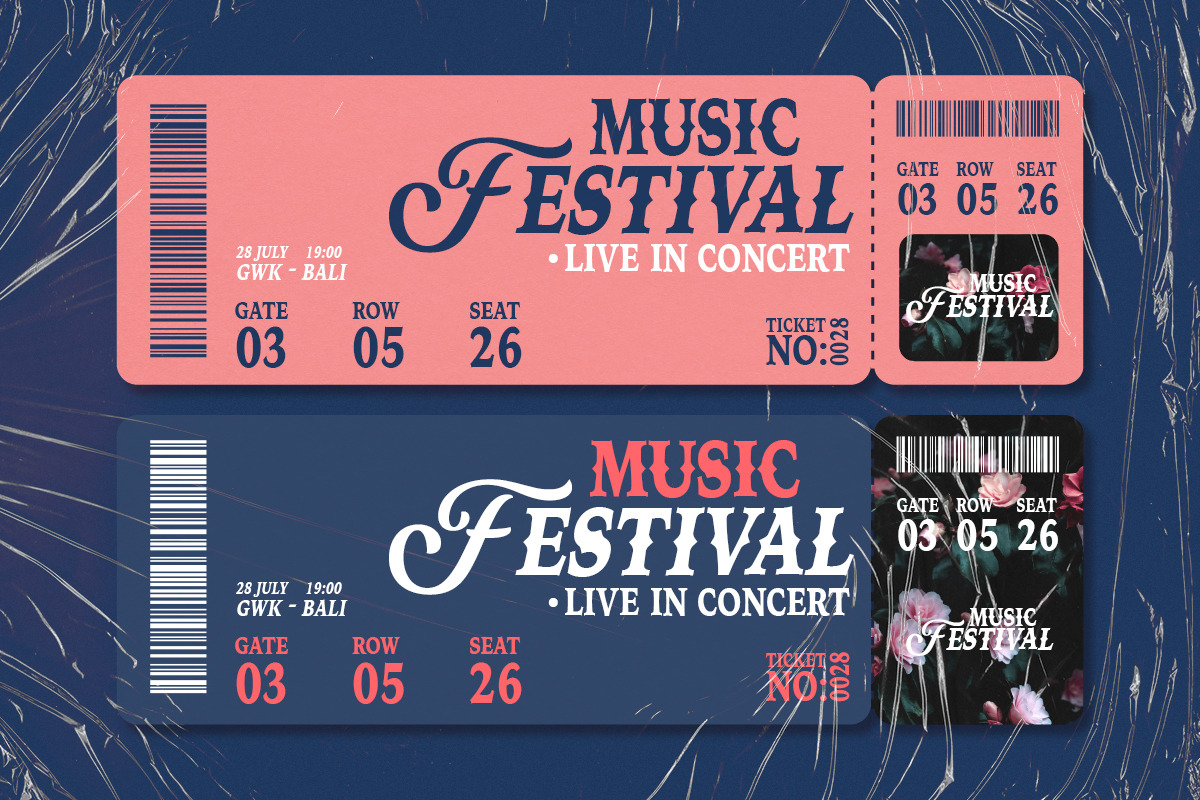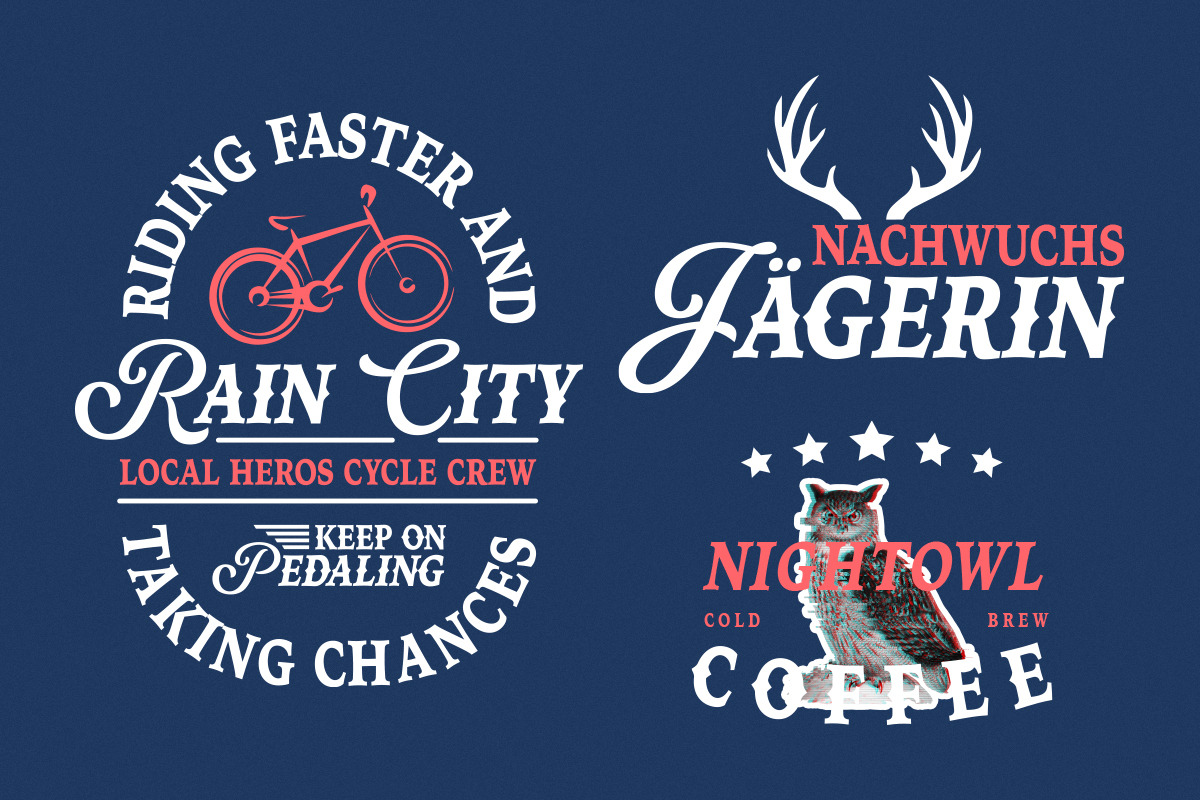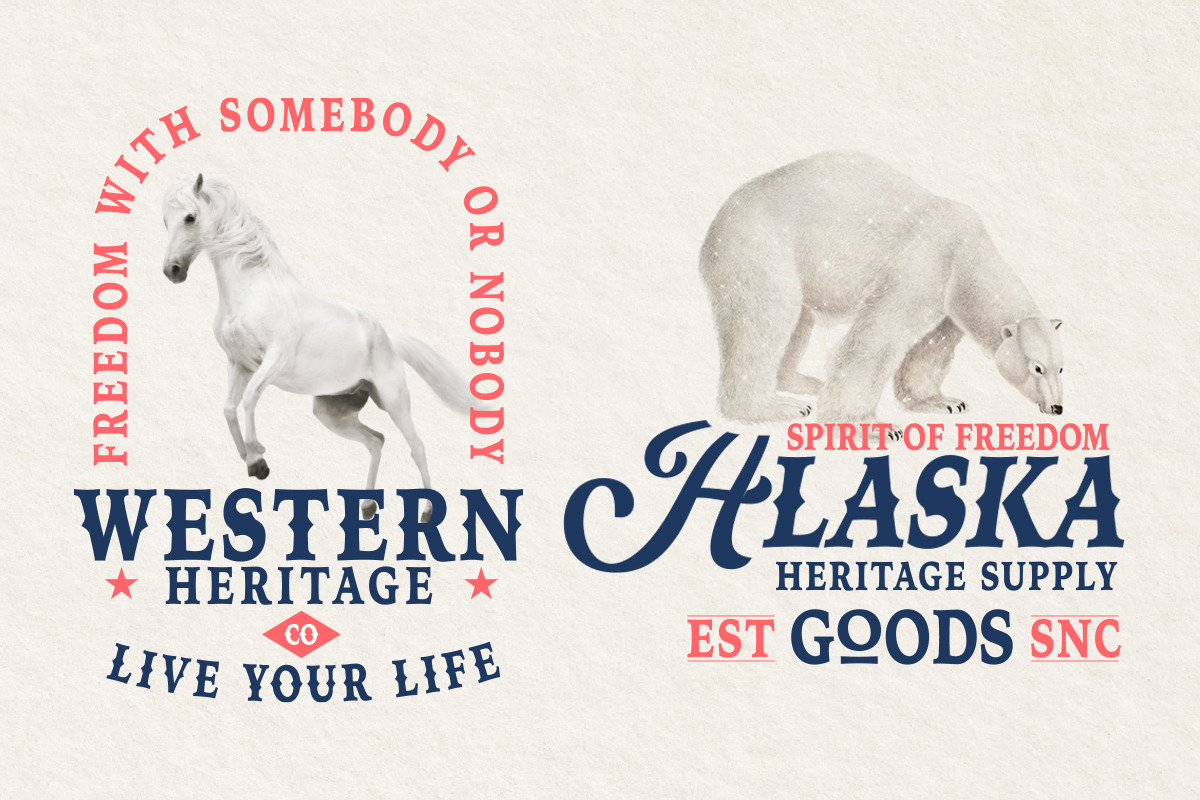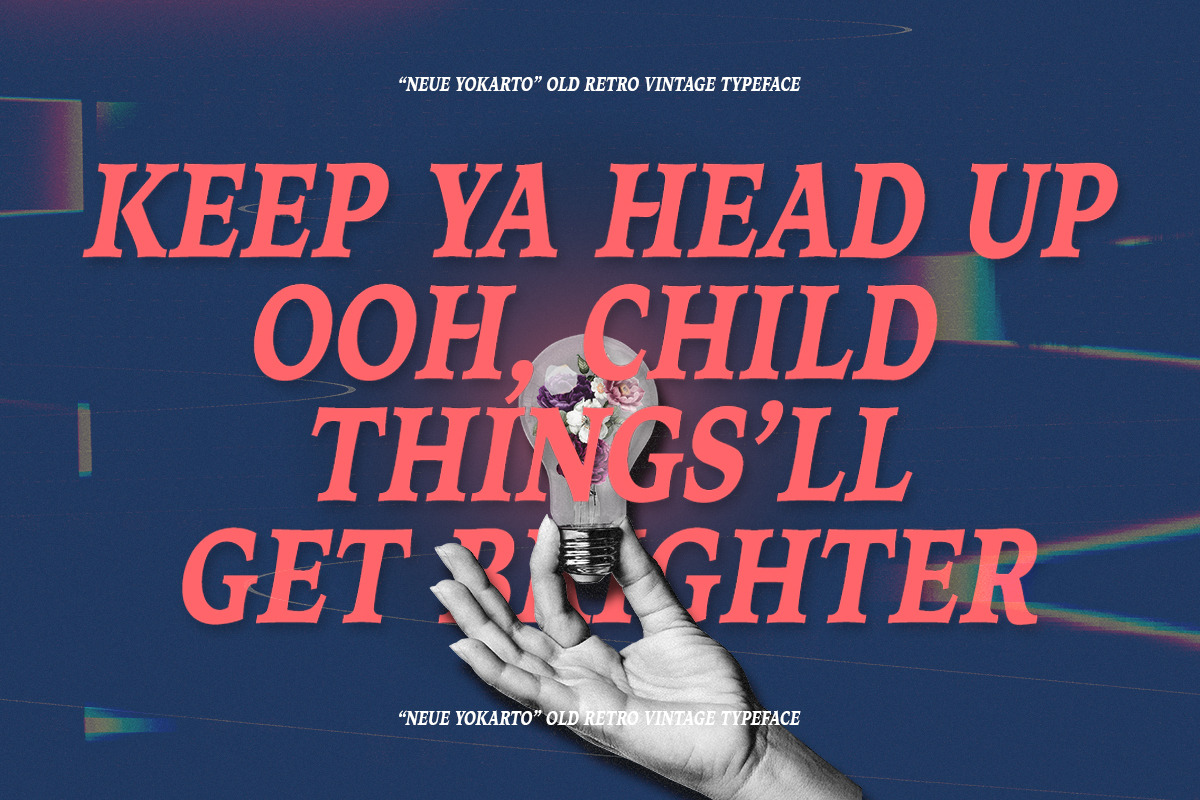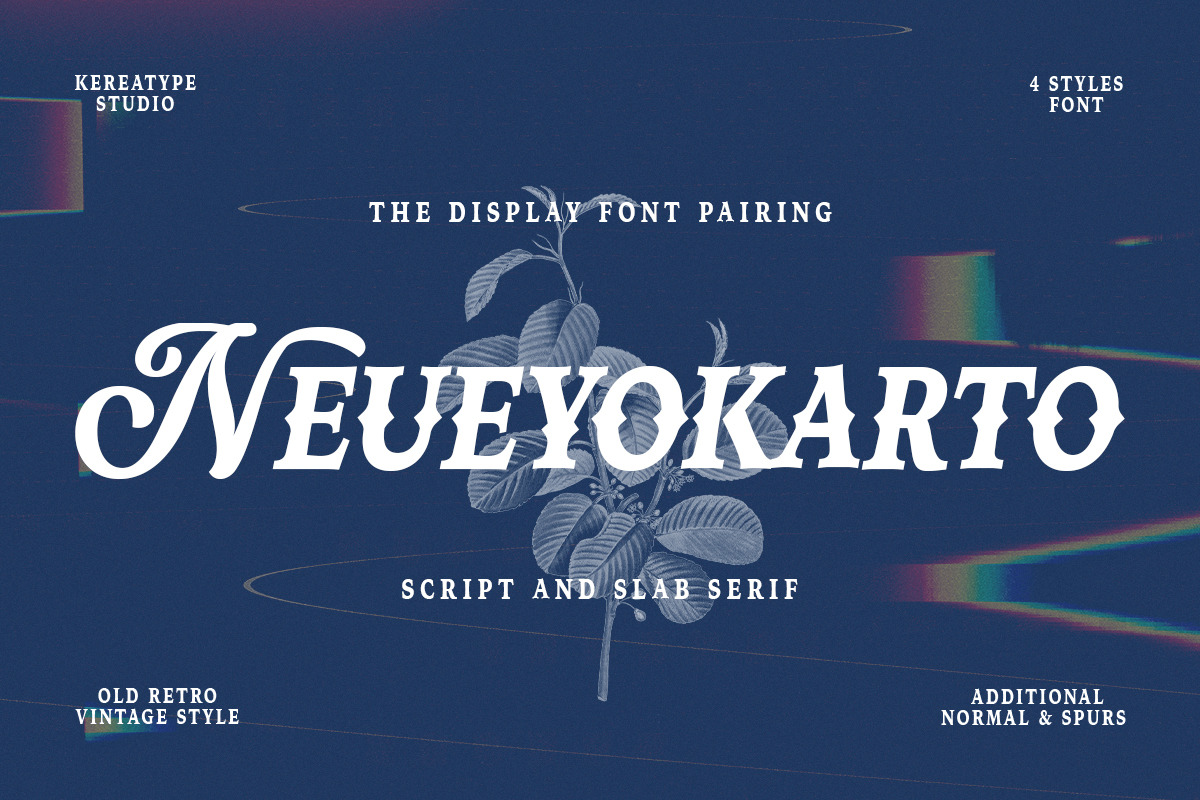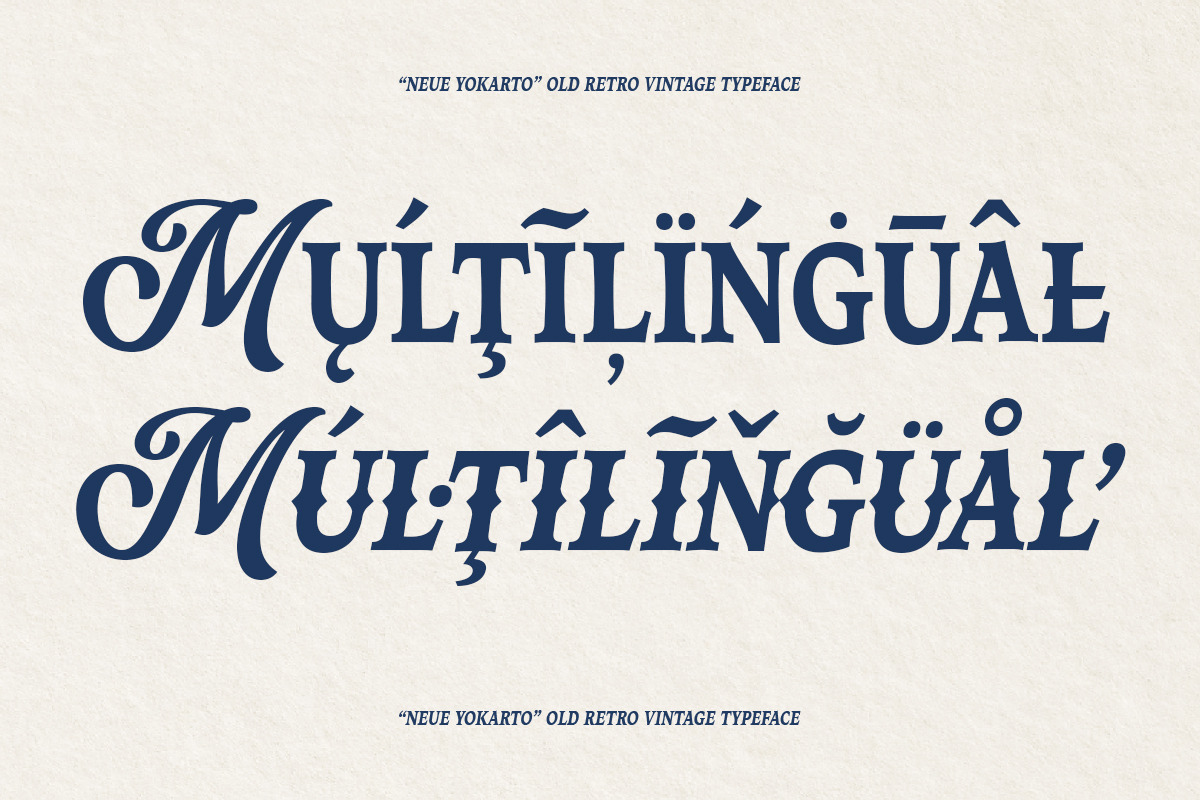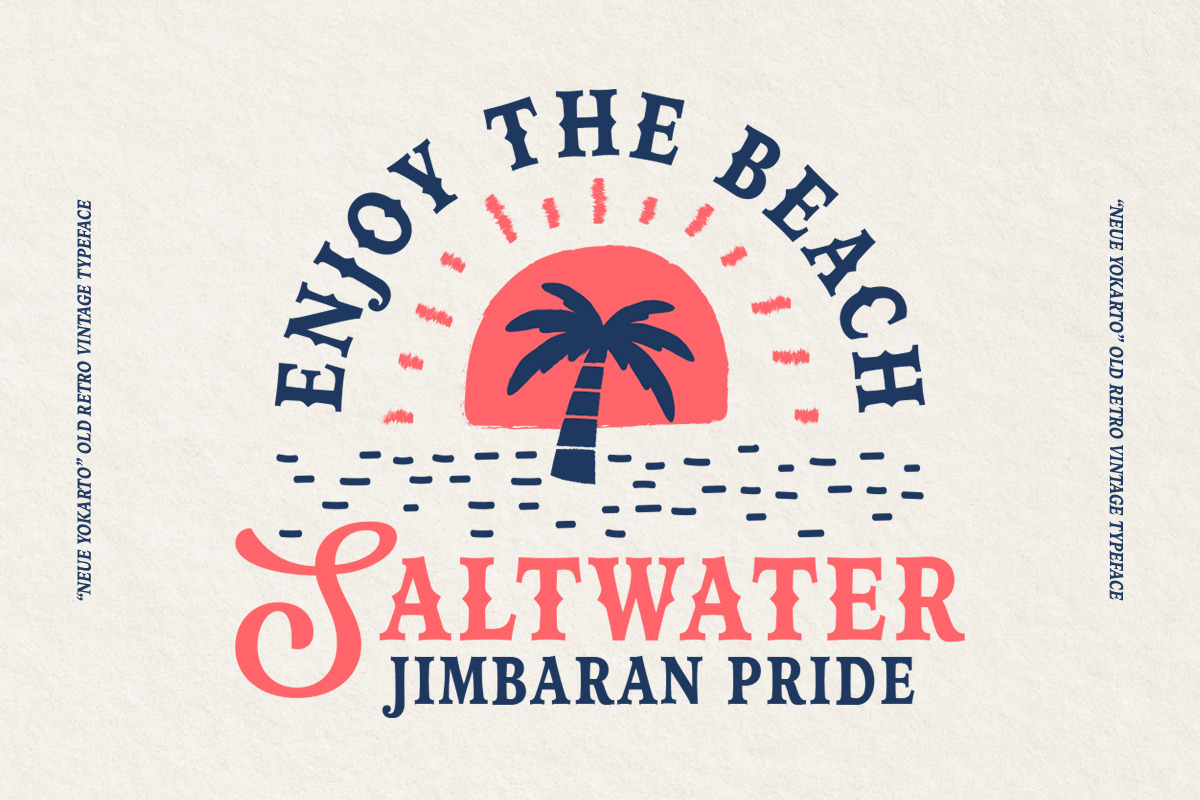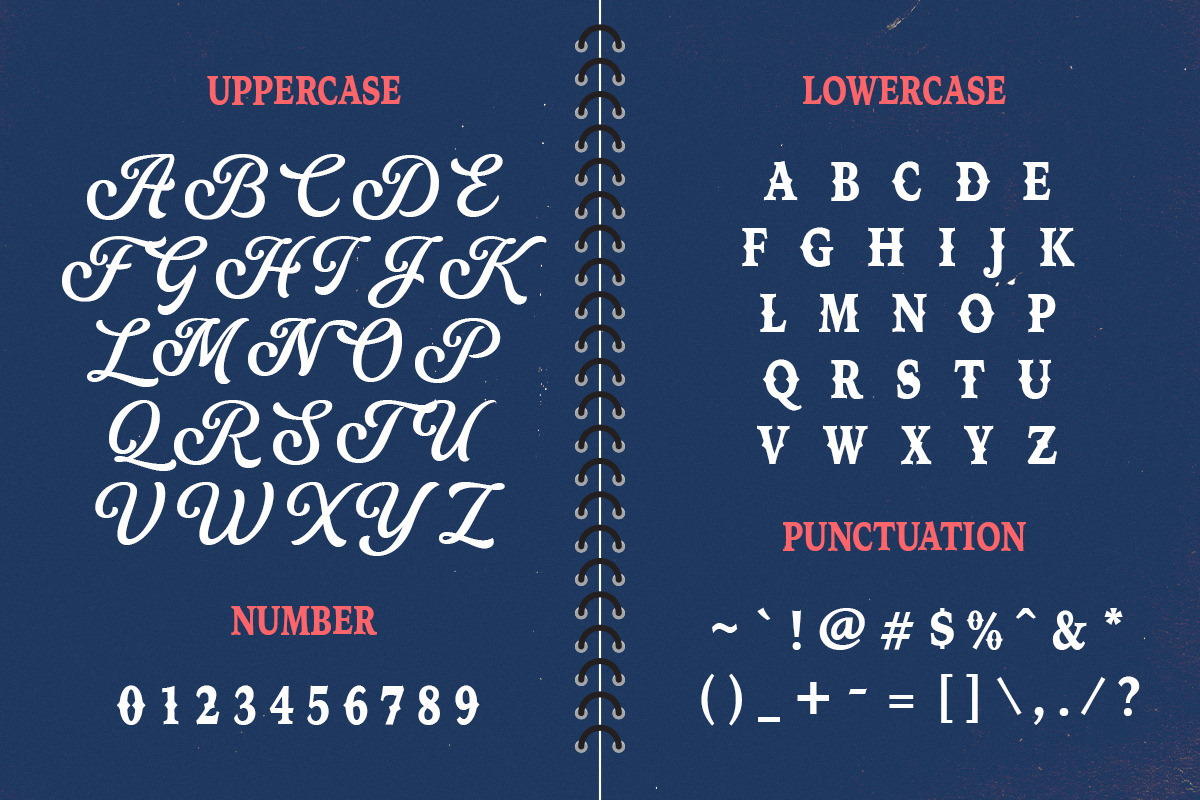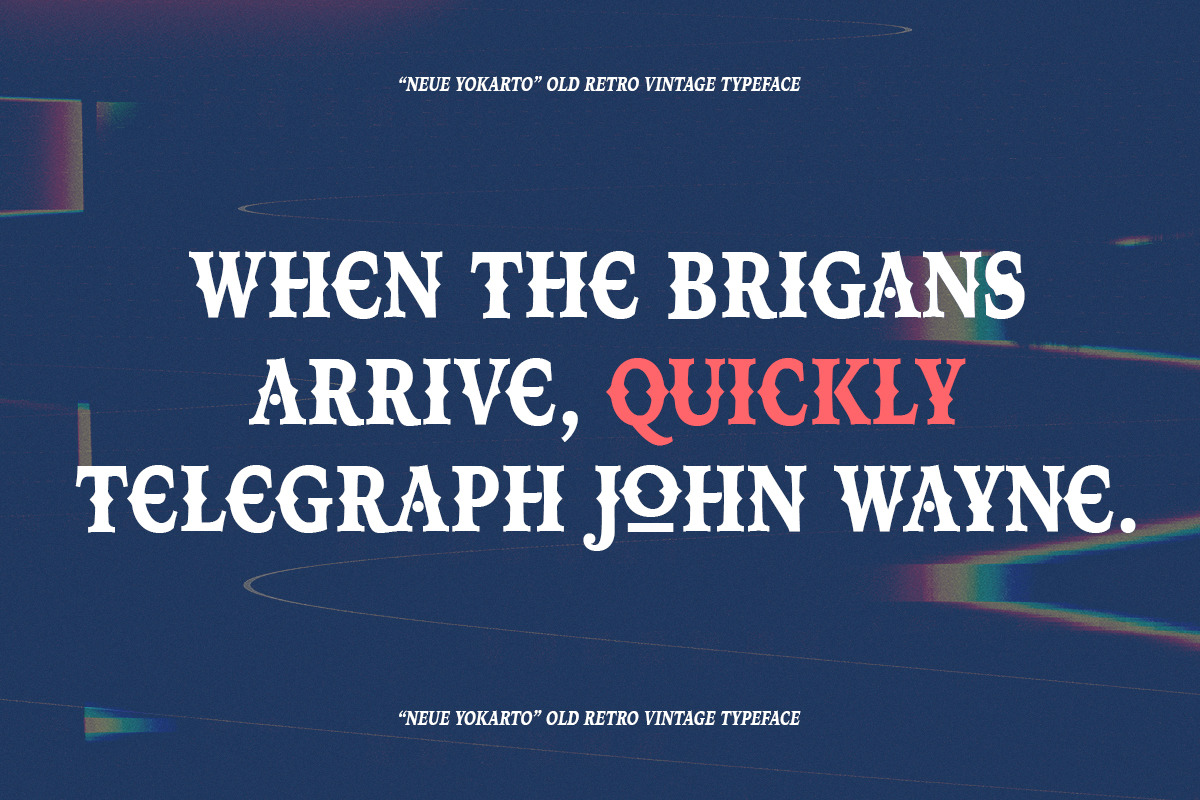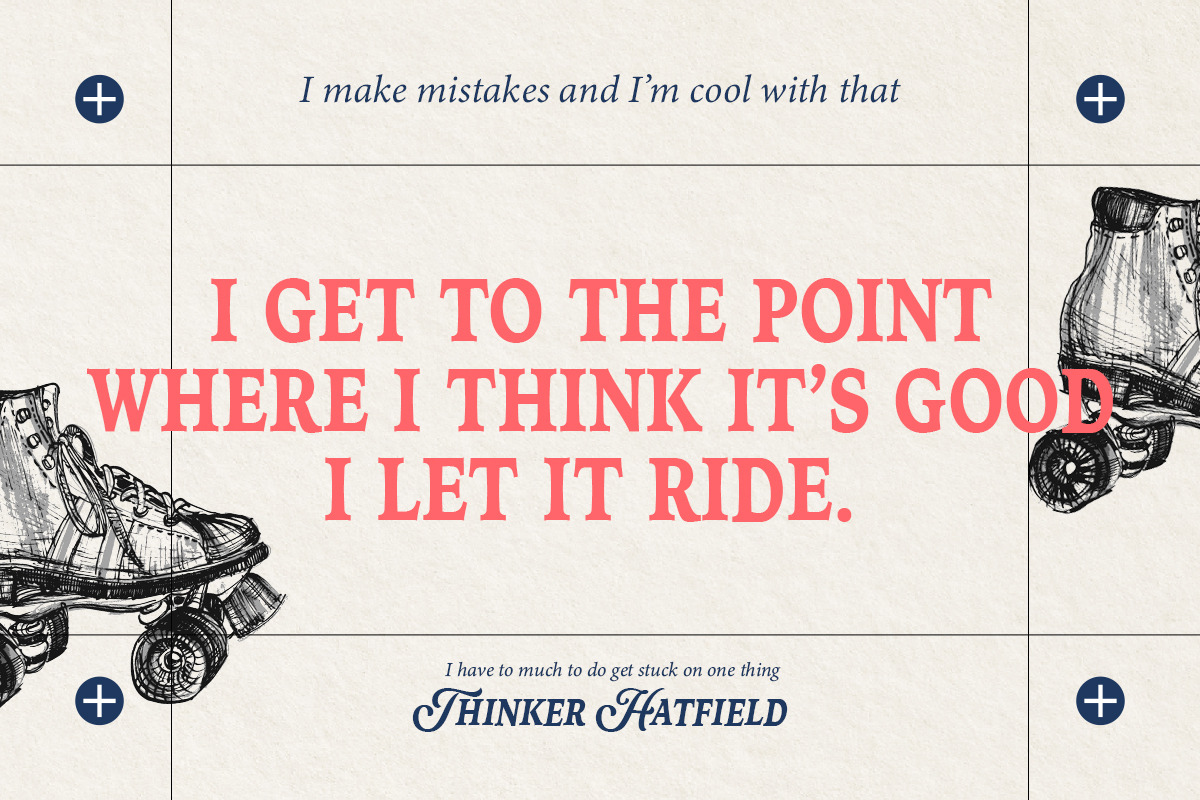
Neue Yokarto - Vintage Pair Font
Introducing our new exploration Neue Yokarto, another vintage-inspired font pairing between Script and Slab Serif, with the additional effects Normal and Spurs, including italic styles. Developed from various references such as vintage signage, logos, badges, and old-fashioned graphics, Neue Yokarto is an all-caps font, meticulously crafted with a highly ornamental taste.
Neue Yokarto is perfect for various display purposes. You can use this font for posters, labels, logos, signboards, T-shirts, book covers, decorations, merchandise, and more!
- Upper Case (Script) & Lowercase (Caps Slab Serif)
- Multilingual characters